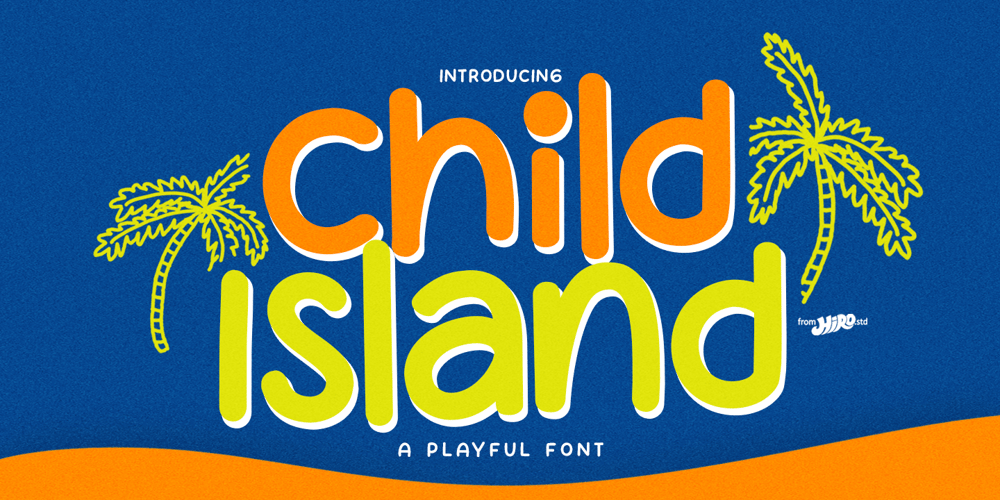
Child Island Font Family was designed by Chairul Ashar and published by HIRO.std. Child Island contains 1 styles and family package options. Child Island a Playful FontThis font describes about funny, childish, happy, excitement, easy going, and very easy to use. Child Island inspired from Children’s World.FEATURES- Uppercase and Lowercase letters- Numbering and Punctuations- PUA Encoded Characters- Multilingual Support- Works on PC or Mac- Simple InstallationUSEChild Island perfect for headings, flyer, body text, product packaging, book or magazine cover, logotype, apparel design, album covers, etc.Enjoy using!Thanks.HIRO.std